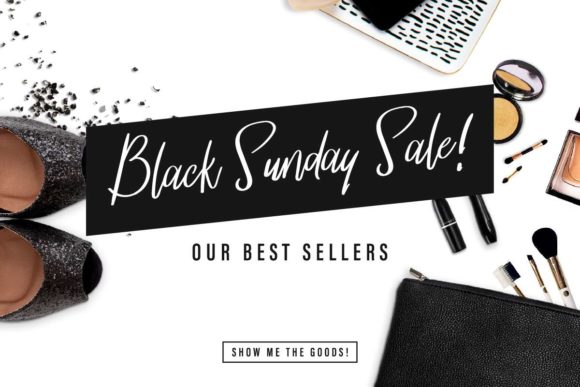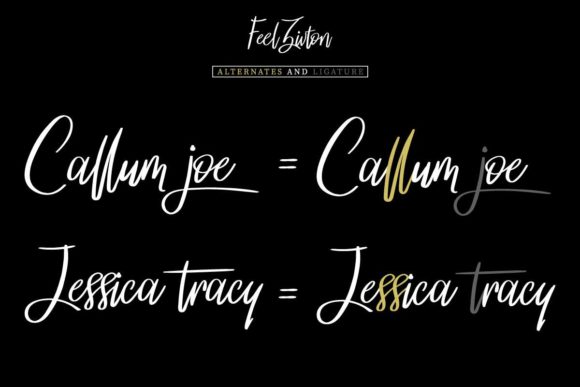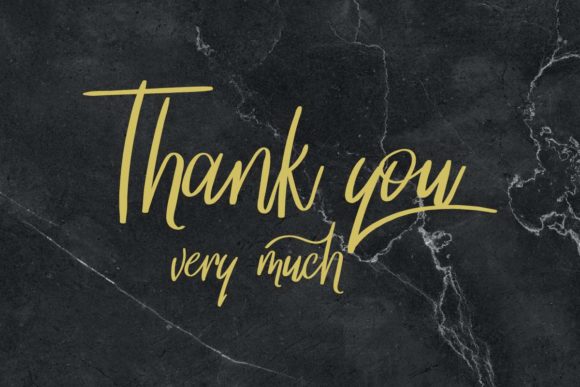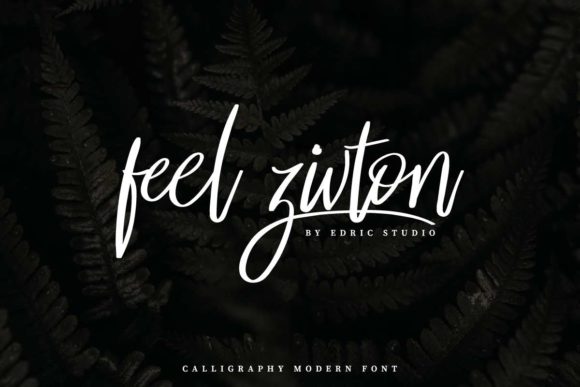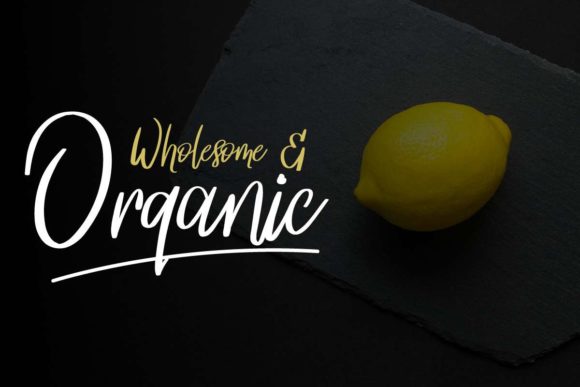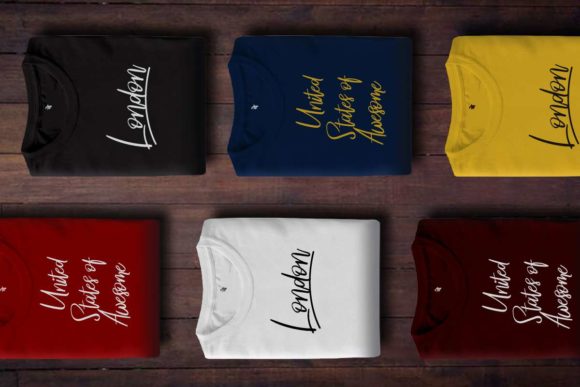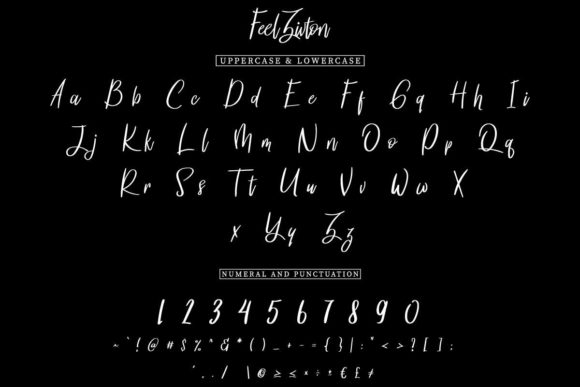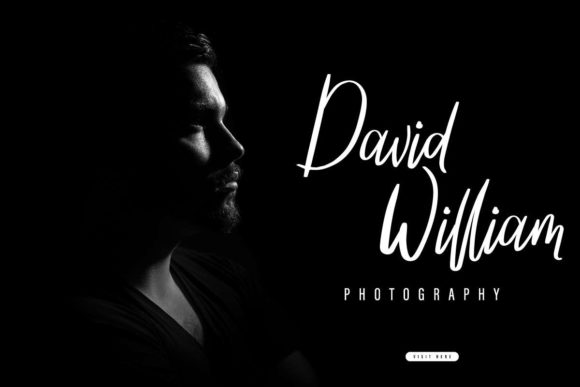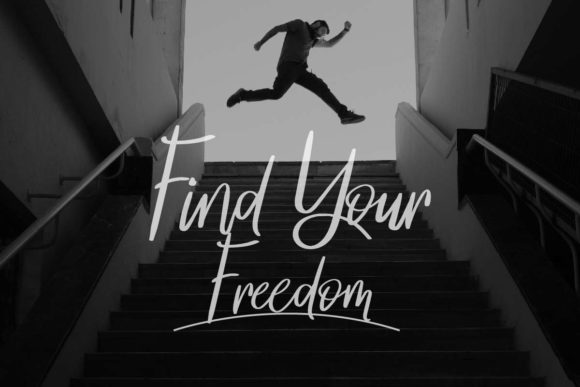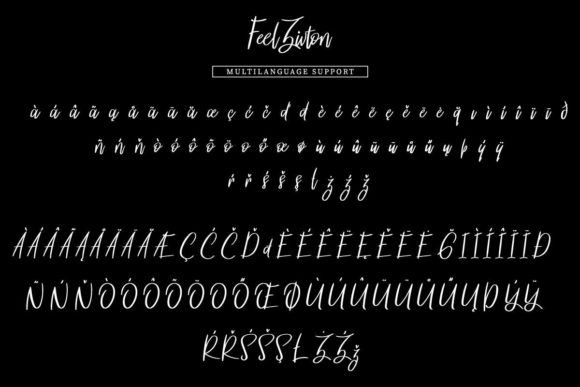
Feel Zivton Font
About Feel Zivton Font
Feel Zivton is a distinct and timeless handwritten font. It looks stunning on wedding invitations, thank you cards, quotes, greeting cards, logos, business cards and every other design which needs a handwritten touch.